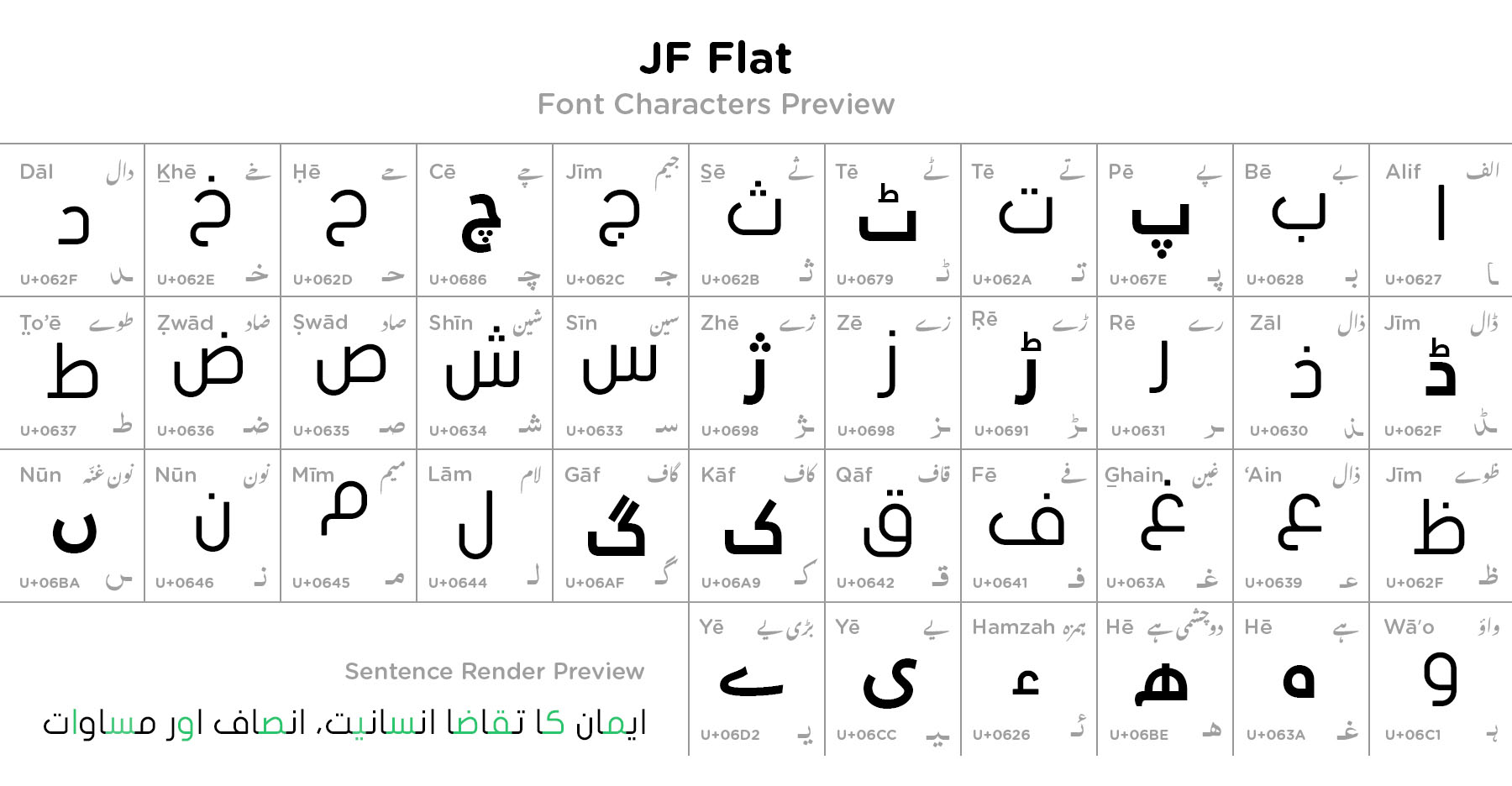
JF Flat is an Arabic font designed by Ahmed Abd El Halim and was released under the trademark of Jozoor Fonts in 2014. It has clean, flat strokes with rounded curves and smooth edges, giving it a simple yet appealing look. The font’s clarity and basic design make it suitable for different applications. With uniformly thick strokes, JFFlat maintains a consistent and balanced look.
It consist of two weights:
The ligatures and diacritics in the font are simplified, preserving the essential characteristics of Arabic and Latin without unnecessary adornments. Boasting a comprehensive character set of 295 with a glyph count of 256 that includes all Arabic and Latin letters, symbols, and punctuation marks, for your various writing projects. It supports 5 Unicode blocks including Basic Latin, Arabic, Arabic Presentation Forms-A, Arabic Presentation Forms-B, and Latin-1Supplement. This font can be used in business logos as well as on book covers and posters.